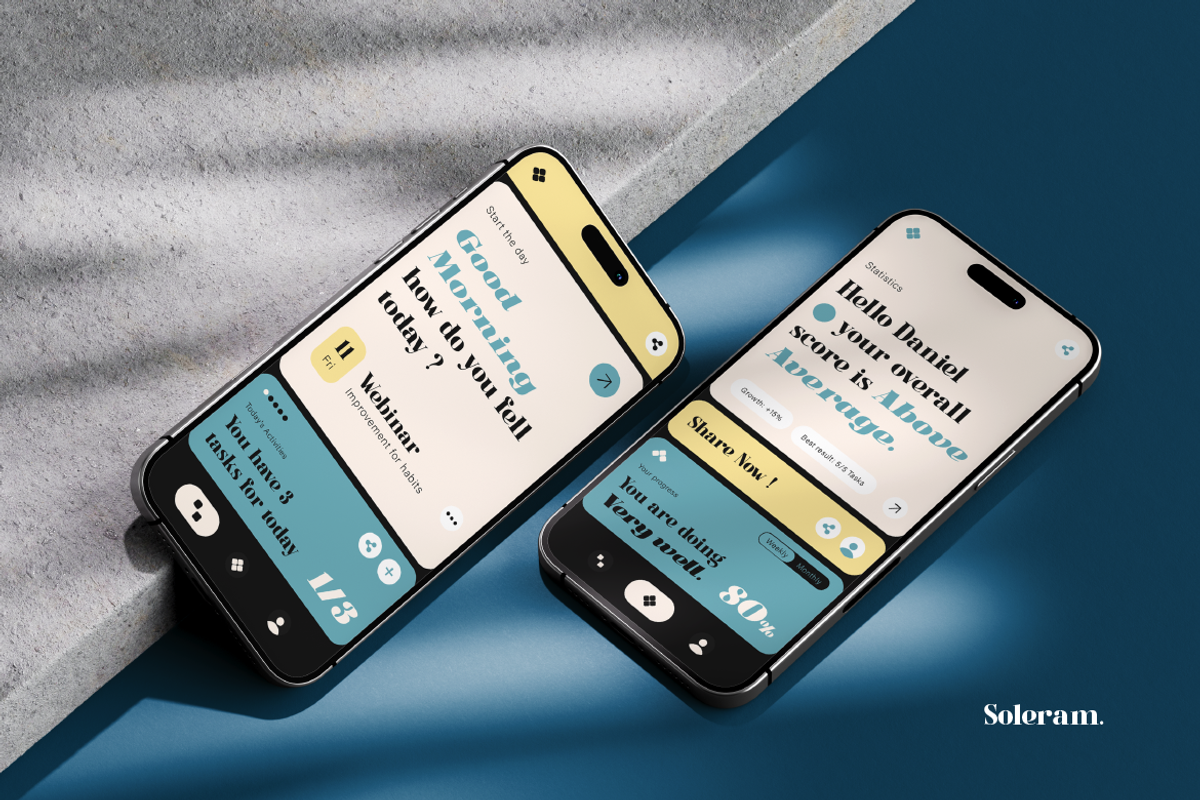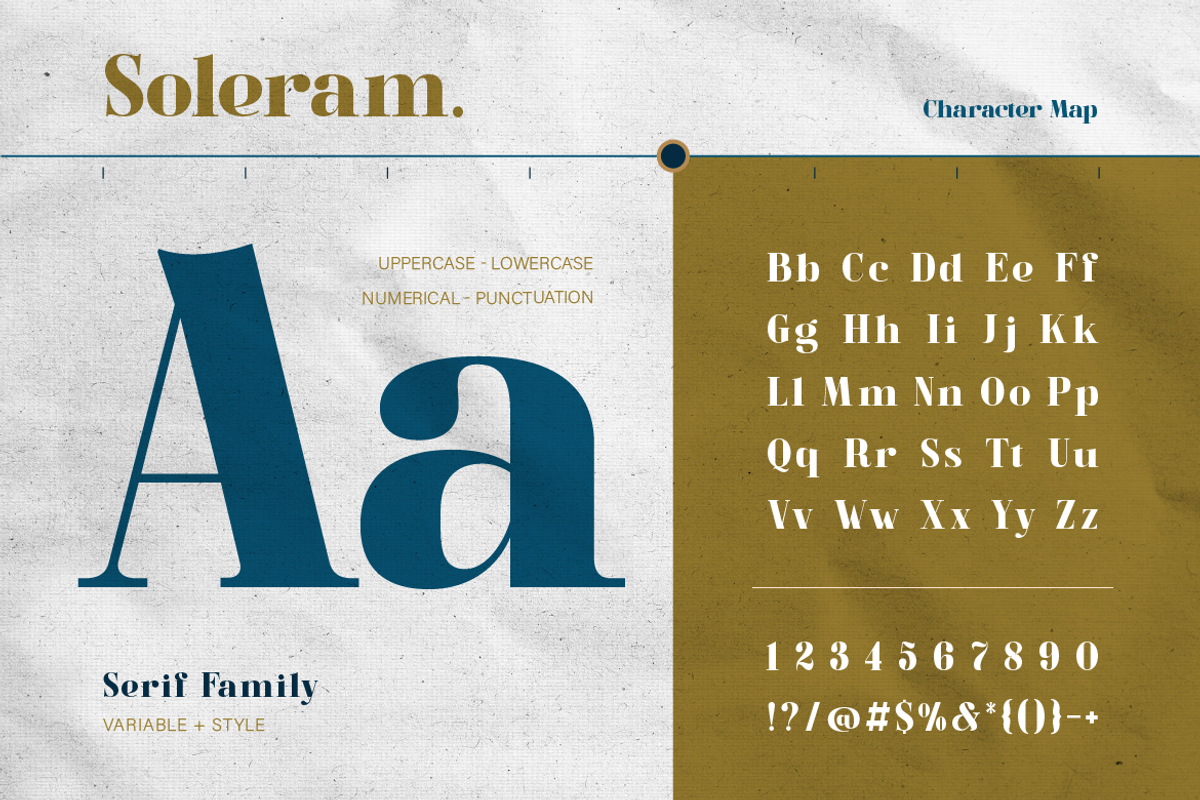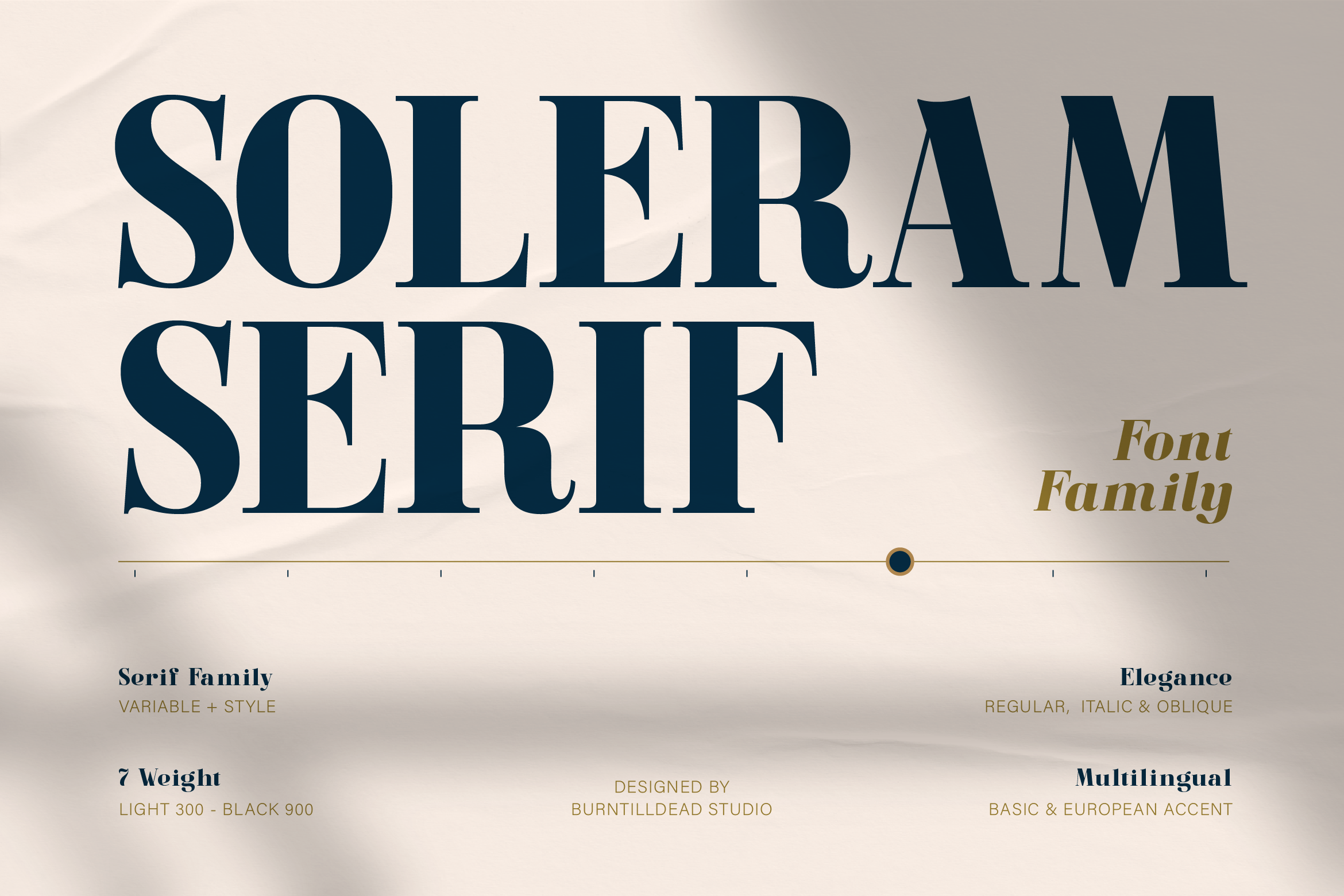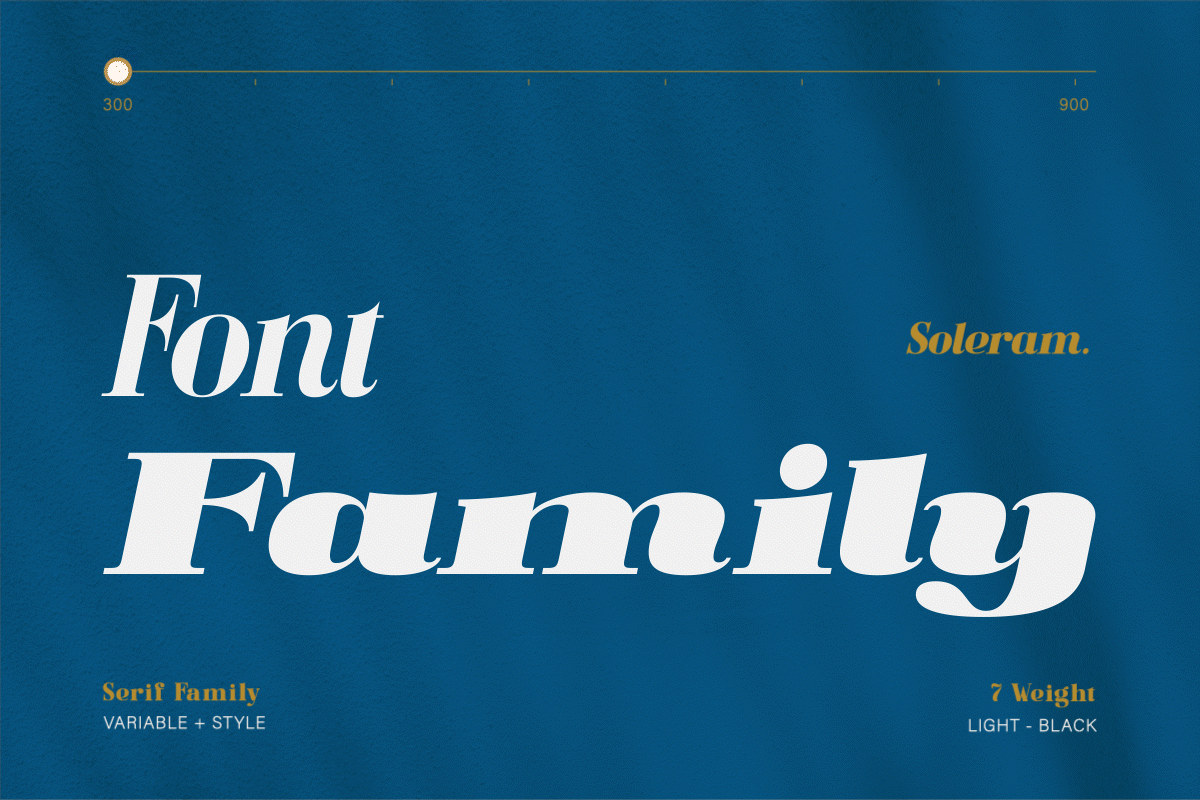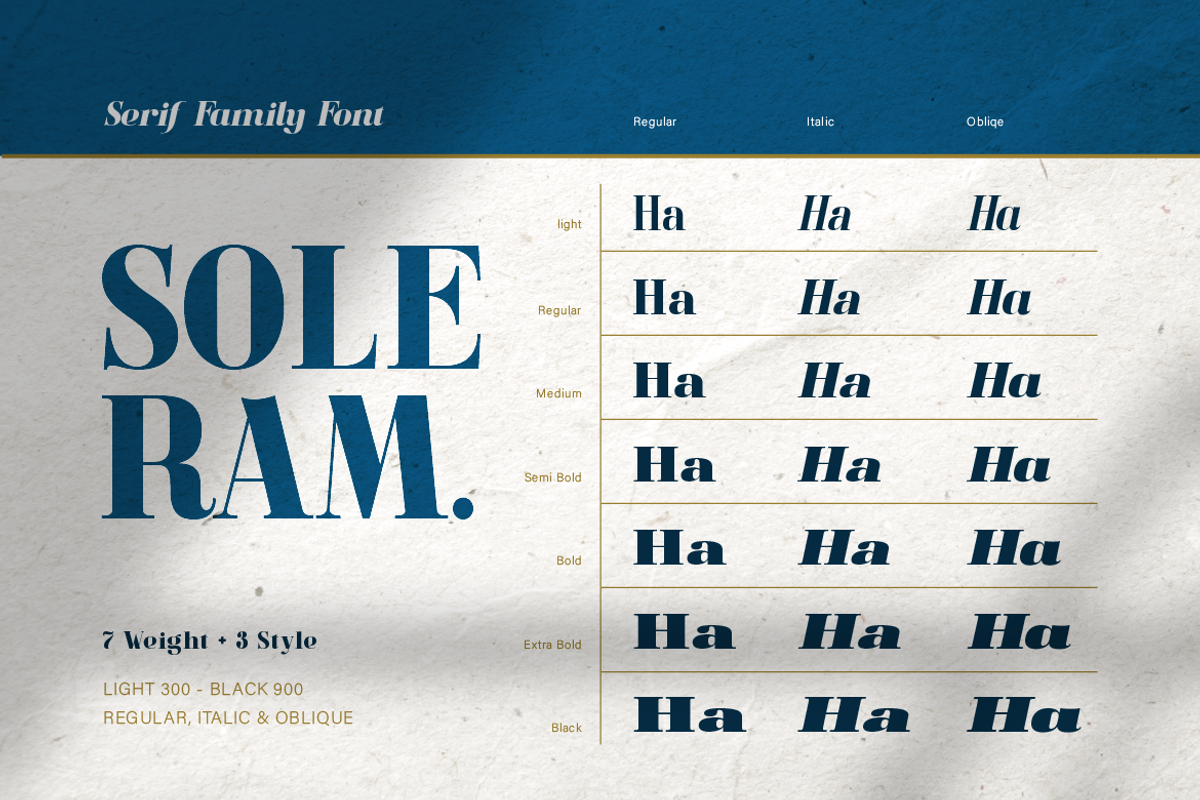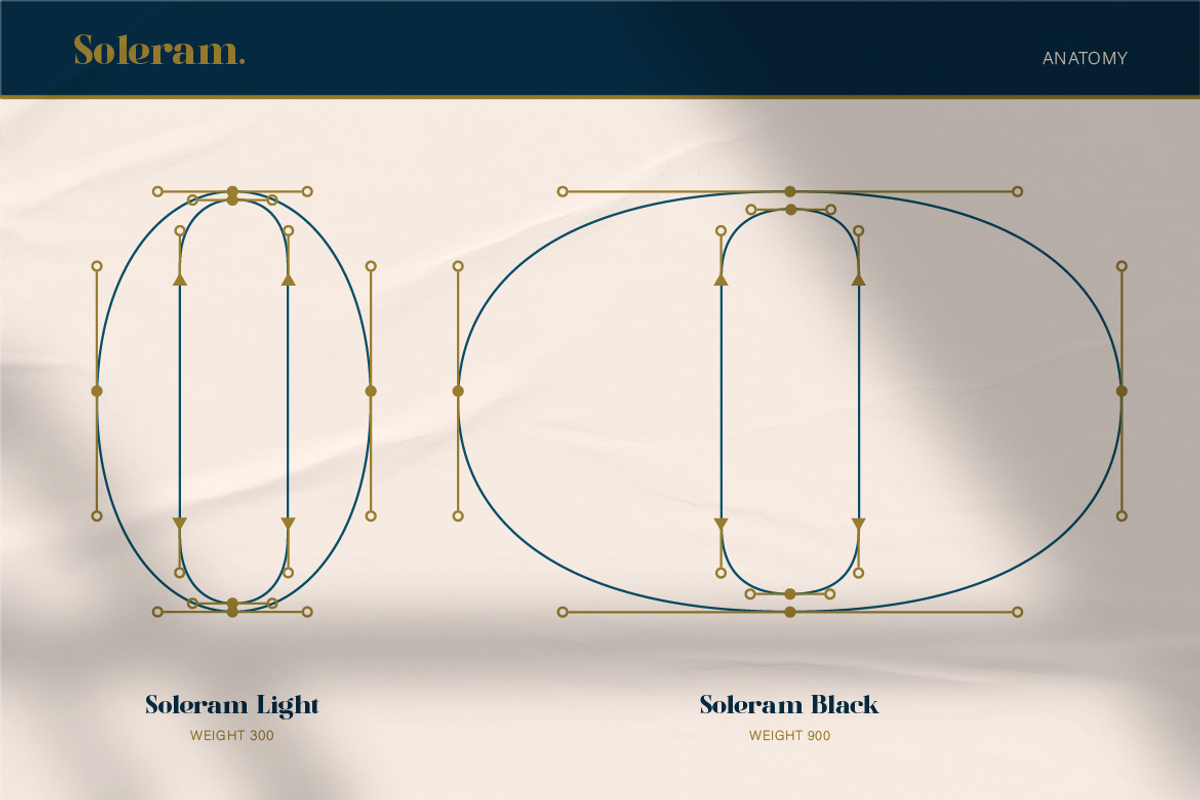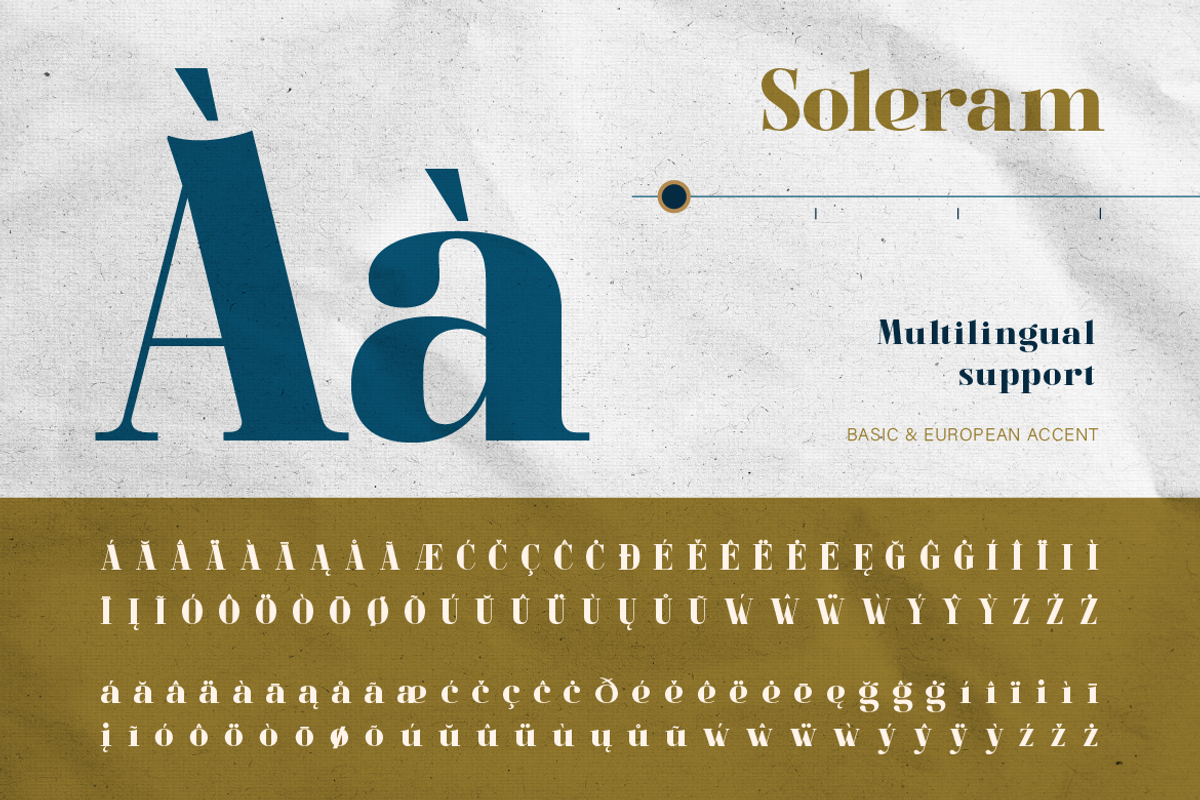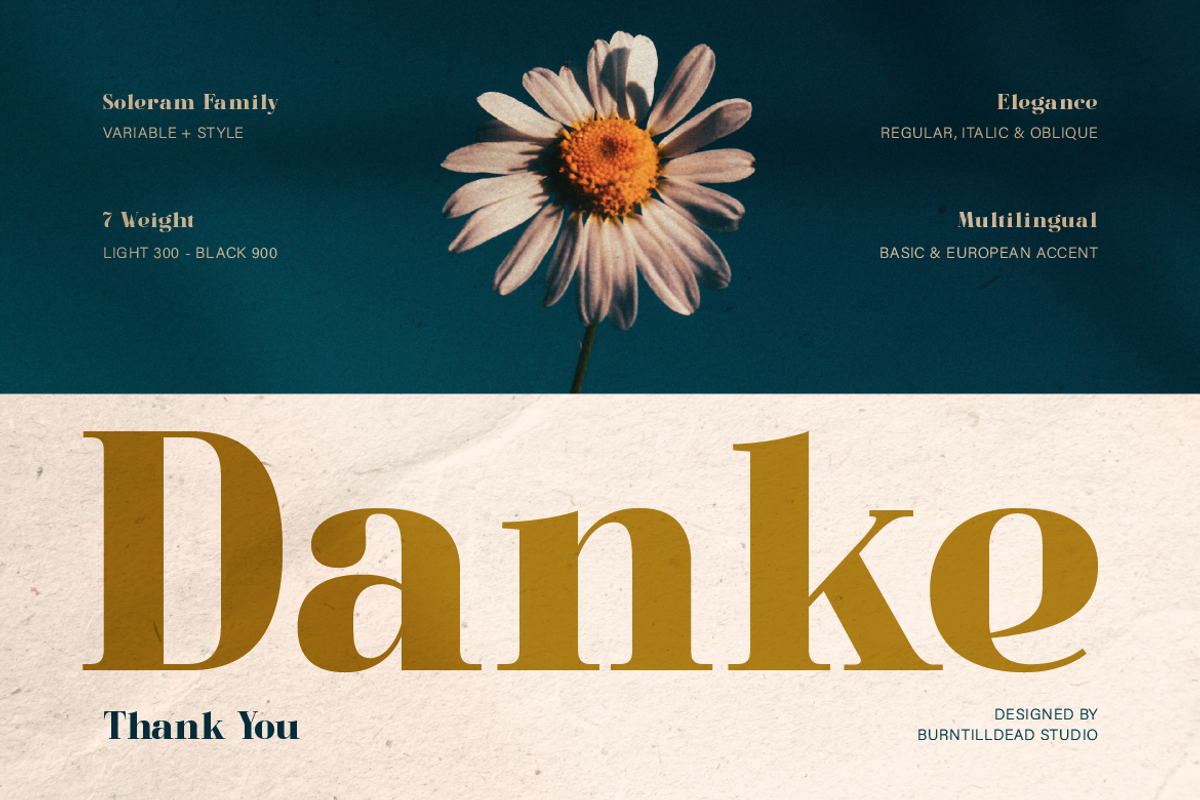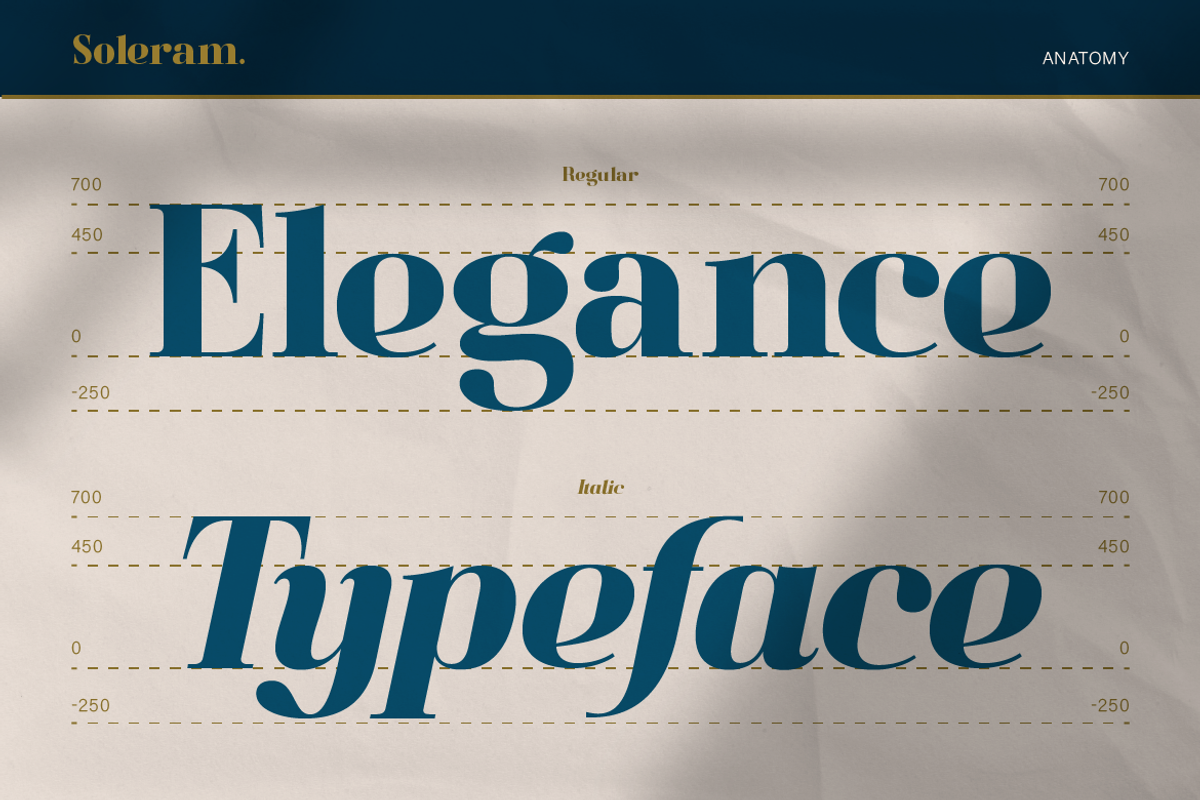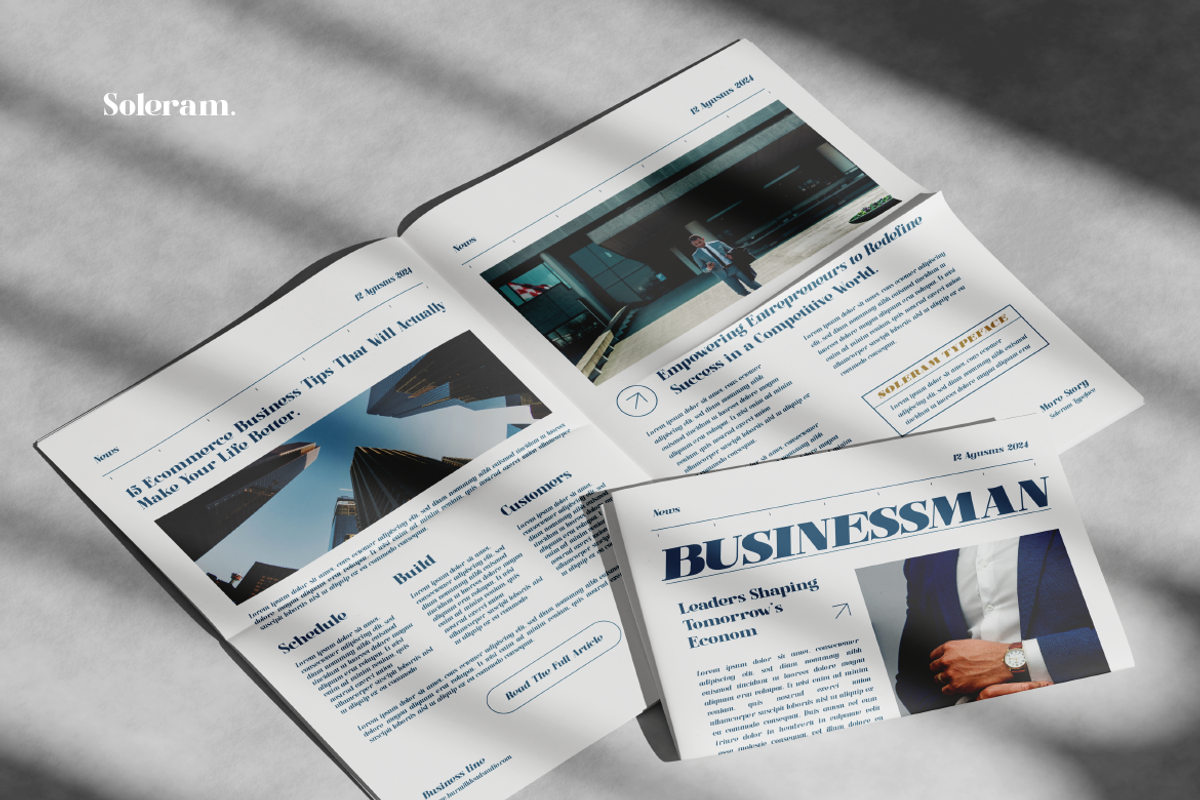
Soleram - 3 Style with 7 Weight Font
Soleram is elegant serif font with 3 styles and 7 weight also support basic and European accent. Soleram is an elegant font serif that brings modern style to serif fonts. Soleram have light, regular, medium, semibold, bold, extra bold, black with regular, italic and oblique style in every weight. Whether used for headlines, body text or branding, this font ensures readability and refined look, enchancing the overall visual appeal of any project.